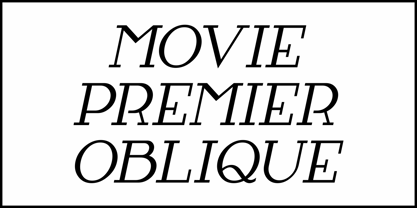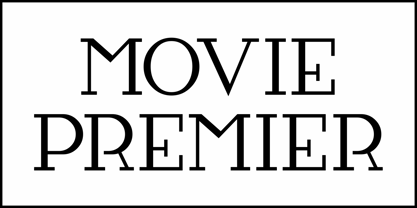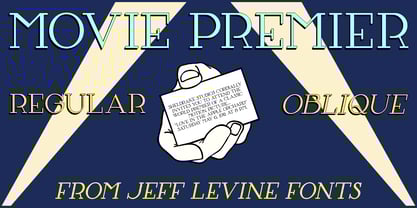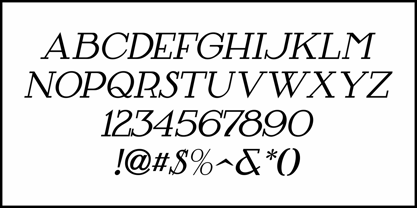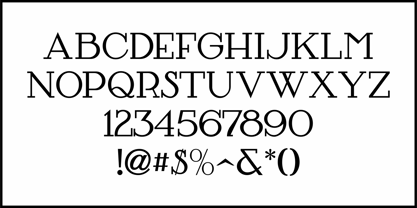
Movie Premier JNL
by Jeff Levine
In the March 11, 1911 issue of Moving Picture News, various topic titles were hand lettered in an Art Nouveau style with squared serifs.
This inspired Movie Premier JNL, which is available in both regular and oblique versions.